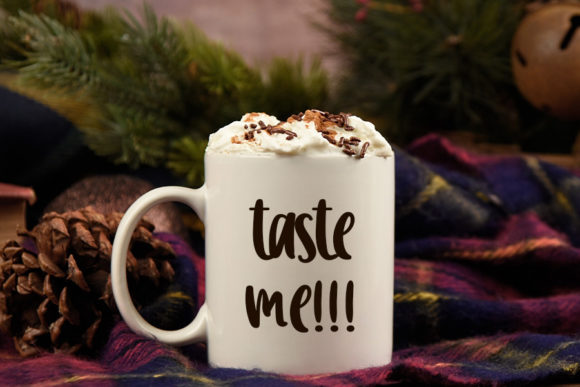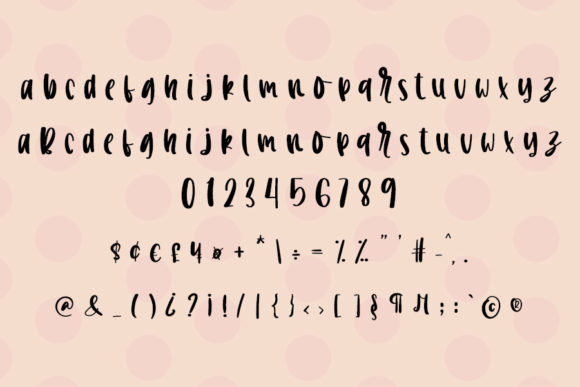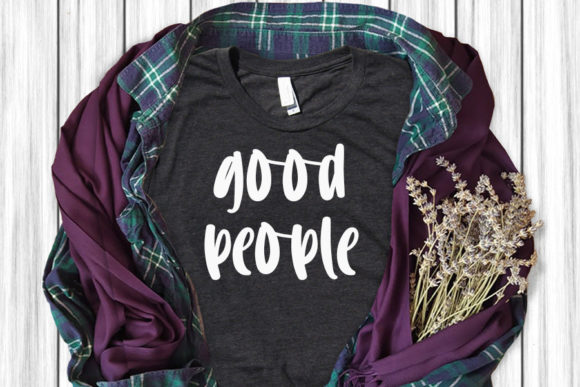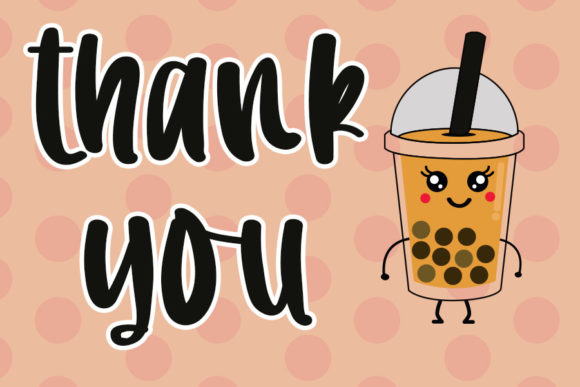
Brownsugar Font: The Perfect Addition to Your Design Arsenal
Are you tired of using the same old fonts in your designs? Look no further than Brownsugar, a casual and friendly display font that’s sure to add a touch of personality to your work. With its natural and unique style, Brownsugar is incredibly versatile and can be used in a wide range of designs, from rustic and vintage-inspired projects to modern and playful ones.
The Characteristics of Brownsugar Font
Brownsugar is a display font that’s all about warmth and approachability. Its casual and friendly vibe makes it perfect for designs that need a personal touch. The font’s natural style is reminiscent of handwritten scripts, but with a more polished and refined feel. This makes it ideal for use in a variety of design projects, including:
- Social media graphics and ads
- Packaging and labeling
The Benefits of Using Brownsugar Font
So why choose Brownsugar font for your next design project? Here are just a few benefits of using this versatile and stylish font:
- Unique and eye-catching: Brownsugar’s natural and unique style sets it apart from more traditional fonts. Its distinctive look is sure to grab attention and make your designs stand out.
- Highly versatile: Whether you’re working on a rustic and vintage-inspired project or a modern and playful one, Brownsugar font is incredibly versatile and can adapt to a wide range of design styles.
- Easy to read: Despite its unique style, Brownsugar font is incredibly easy to read, making it perfect for use in body text as well as headlines and titles.
- Customizable: With Brownsugar font, the only limit is your imagination! You can use it in a variety of ways, from simple and bold to intricate and ornate.
How to Use Brownsugar Font in Your Designs
Ready to start using Brownsugar font in your designs? Here are a few tips to get you started:
- Pair it with other fonts: Brownsugar font pairs perfectly with a wide range of other fonts, from simple and sans-serif to ornate and script-like. Experiment with different combinations to find the one that works best for your design.
- Use it in bold and eye-catching ways: Brownsugar font is perfect for use in bold and eye-catching ways, such as in headlines and titles. Don’t be afraid to experiment with different sizes and colors to make your design pop.
- Add some texture and interest: To take your design to the next level, consider adding some texture and interest to your Brownsugar font. This could include adding a subtle gradient or texture, or using a bold and bright color.
In conclusion, Brownsugar font is a versatile and stylish addition to any design arsenal. Its natural and unique style makes it incredibly fitting to a large pool of designs, and its ease of use and customizability make it perfect for designers and crafters of all levels. Whether you’re working on a rustic and vintage-inspired project or a modern and playful one, Brownsugar font is sure to add a touch of personality and whimsy to your work. So why not give it a try and see the difference it can make?